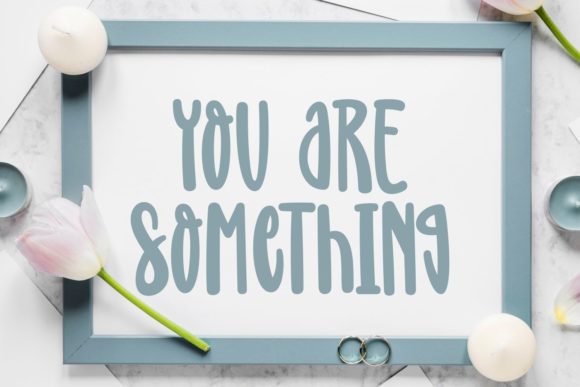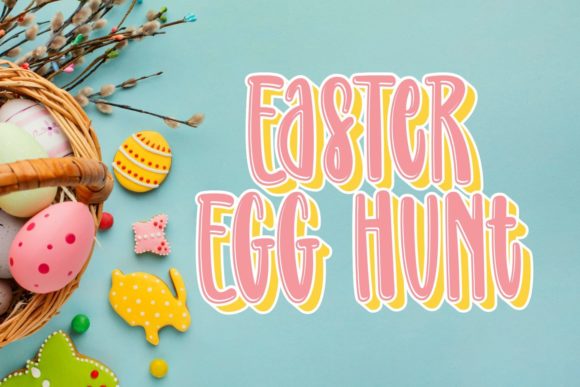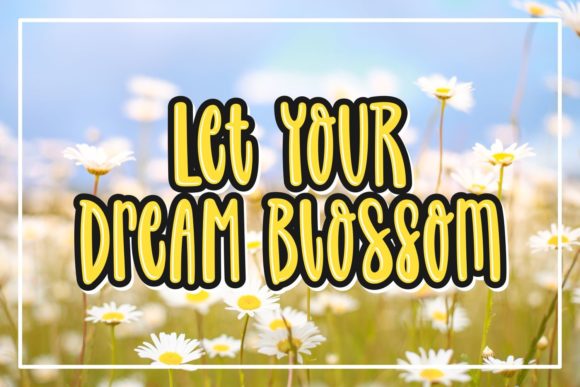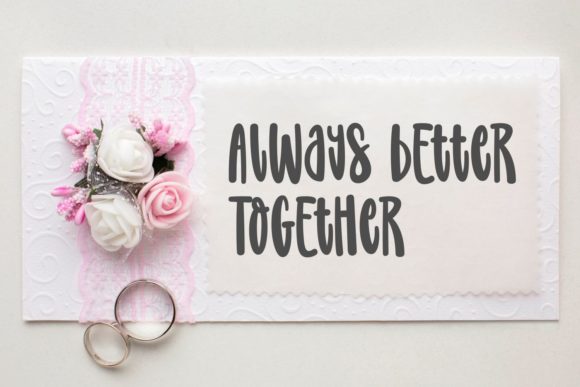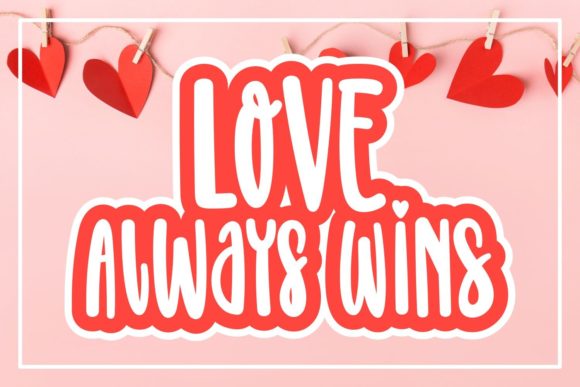
A Gift of Love Font: The Perfect Choice for Your Creative Projects
Are you a designer, crafty person, or someone who loves to create unique content? Look no further! A Gift of Love font is here to take your creative projects to the next level. This romantic, bold, and modern display font is designed to impress with its versatility and flexibility. In this article, we’ll explore the features and benefits of A Gift of Love font and how it can elevate your book covers, storybooks, branding materials, advertisements, social media posts, and many other creations.
What Makes A Gift of Love Font Stand Out?
A Gift of Love font is a stunning example of modern typography. Its bold and romantic design makes it perfect for creating eye-catching headlines, titles, and captions. The font’s versatility allows it to be used in various contexts, from book covers and storybooks to branding materials and advertisements. Whether you’re looking to create a beautiful wedding invitation or a captivating social media post, A Gift of Love font is the perfect choice.
Key Features of A Gift of Love Font
- Romantic and Bold Design: A Gift of Love font features a romantic and bold design that will add a touch of elegance to your creative projects.
- Modern Display Font: This modern display font is perfect for creating eye-catching headlines, titles, and captions.
- Versatile and Flexible: A Gift of Love font can be used in various contexts, from book covers and storybooks to branding materials and advertisements.
- Easy to Read: Despite its bold design, A Gift of Love font is easy to read, making it perfect for body text and captions.
How to Use A Gift of Love Font in Your Creative Projects
A Gift of Love font can be used in a variety of creative projects, including:
- Book Covers: Create a stunning book cover with A Gift of Love font that will grab the attention of potential readers.
- Storybooks: Add a touch of magic to your storybooks with A Gift of Love font.
- Branding Materials: Use A Gift of Love font to create beautiful branding materials, such as logos, business cards, and brochures.
- Advertisements: Create eye-catching advertisements with A Gift of Love font that will grab the attention of your target audience.
- Social Media Posts: Use A Gift of Love font to create captivating social media posts that will engage your followers.
Benefits of Using A Gift of Love Font
Using A Gift of Love font in your creative projects offers several benefits, including:
- Unique and Eye-Catching Design: A Gift of Love font features a unique and eye-catching design that will set your creative projects apart from the rest.
- Improved Readability: A Gift of Love font is easy to read, making it perfect for body text and captions.
- Increased Engagement: The bold and romantic design of A Gift of Love font will engage your audience and grab their attention.
- Flexibility and Versatility: A Gift of Love font can be used in various contexts, making it a great addition to your font library.
In conclusion, A Gift of Love font is a romantic, bold, and modern display font that is perfect for designers, crafty people, and anyone who loves to create unique content. Its versatility, flexibility, and eye-catching design make it a great choice for various creative projects, from book covers and storybooks to branding materials and advertisements. With A Gift of Love font, you can add a touch of elegance and sophistication to your creative projects and engage your audience like never before.